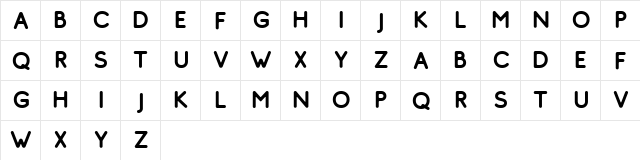
Comodo Free Regular
Design Context for Comodo Free Typeface
Comodo Free offers clean, dependable letterforms without strong stylistic allegiance, making it a practical choice for designers who need flexibility.
Pro Tip: Use Comodo Free in both headline and body roles to test its range before committing to a single application.